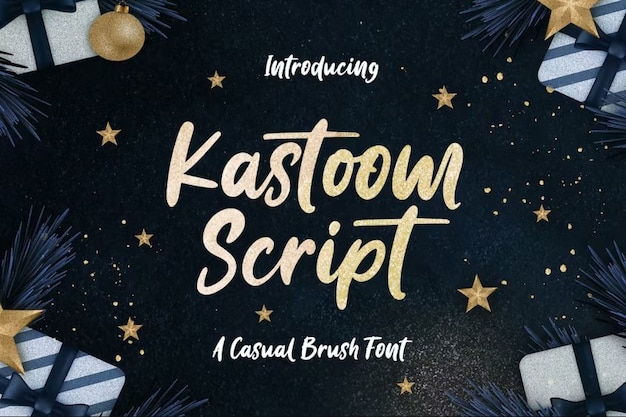
Kastoom Script Font
Drizy Studio
Kastoom Script is the cool kid on the handwritten font block. With the charm of genuine hand lettering and the edginess of a brush stroke, it brings a dash of casual elegance to your projects. Each character is crafted with a brush-like flair, giving your text an artistic, hand-drawn vibe. Whether you're designing invitations, crafting a logo, or adding a personal touch to your social media graphics, Kastoom Script's fluid strokes and natural flow make your words stand out effortlessly. It's the go-to choice when you want your designs to feel not just written, but stylishly curated with a touch of spontaneous creativity.